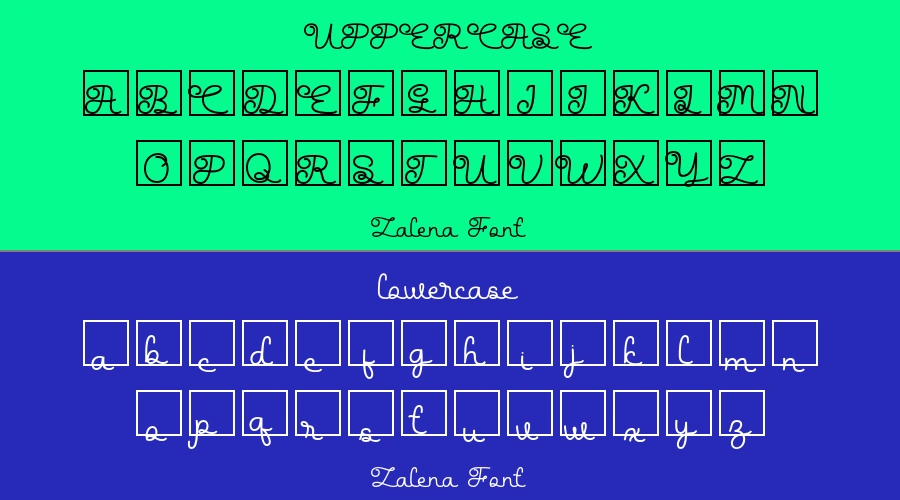
About Zalena Font
Zalena Font stands out for its distinctive combination of calligraphic strokes and integrity. Ideal for scientific papers, it provides the reliability and practical utility that professional projects demand. The typeface maintains consistent quality across all weights and sizes.
Key features include refined structural clarity and practical case-sensitive forms, enhancing typographic expression. In running text applications, Zalena Font demonstrates exceptional digital conversion. The terminal angle and standards alignment contribute to its distinctive character and professional appeal.